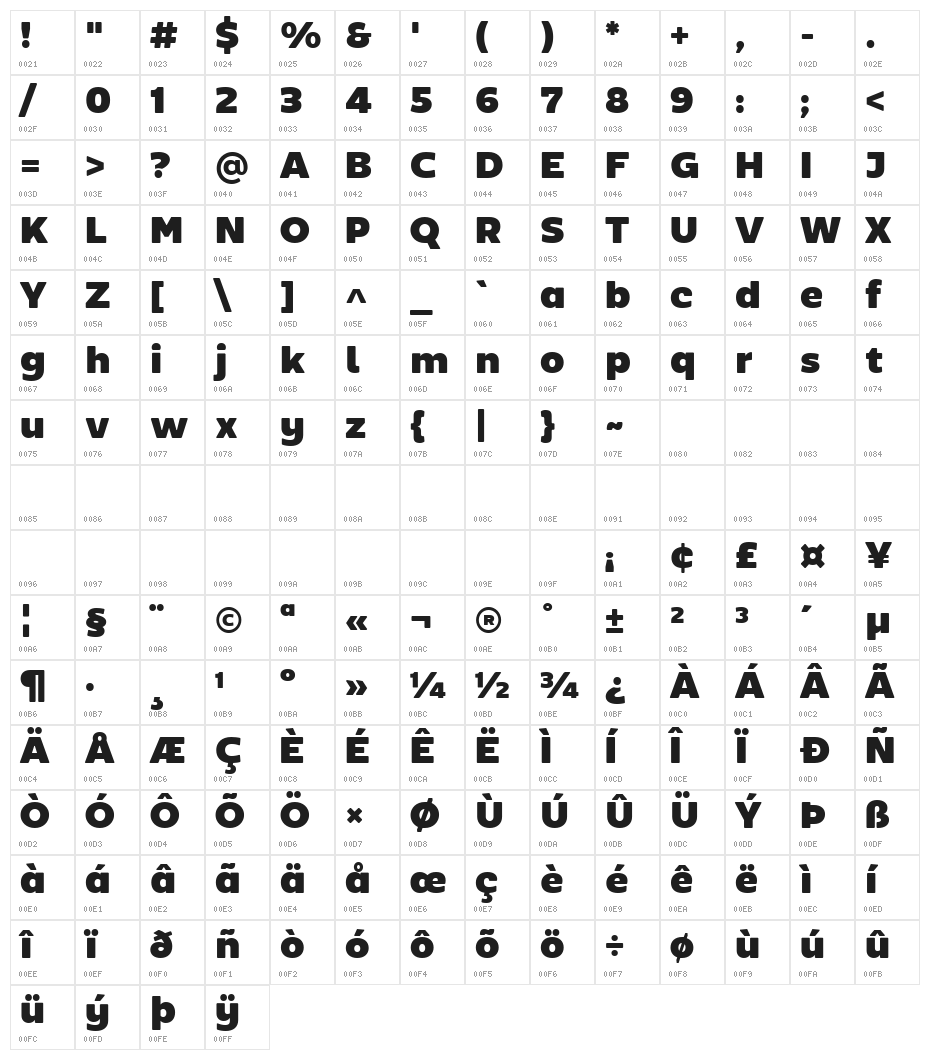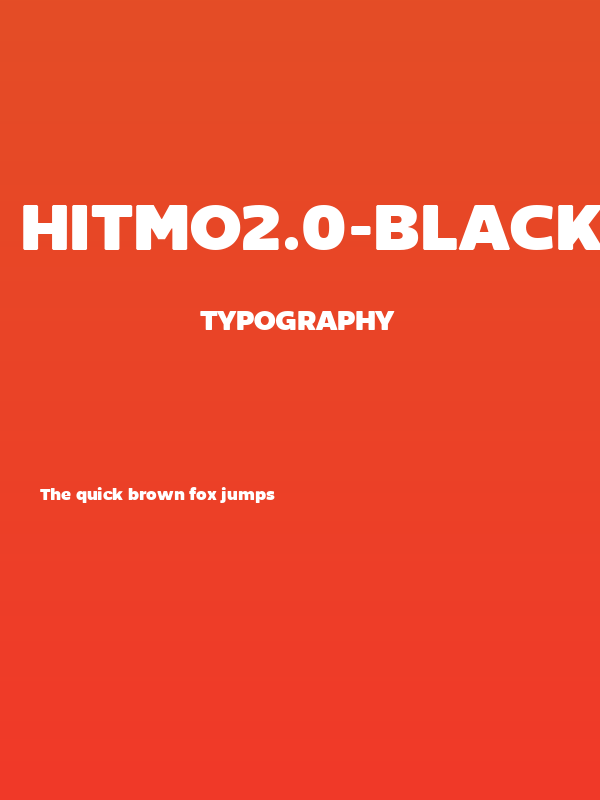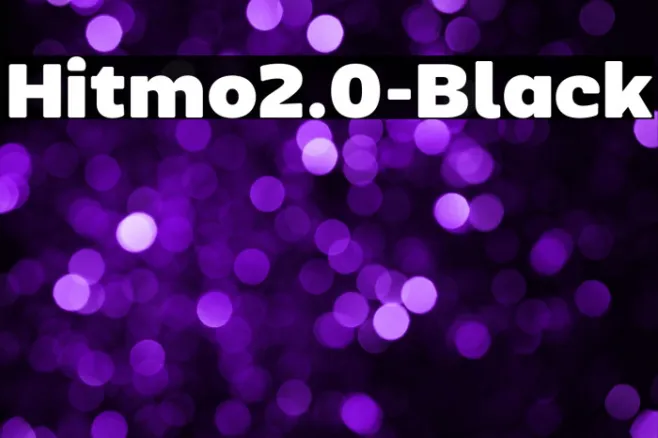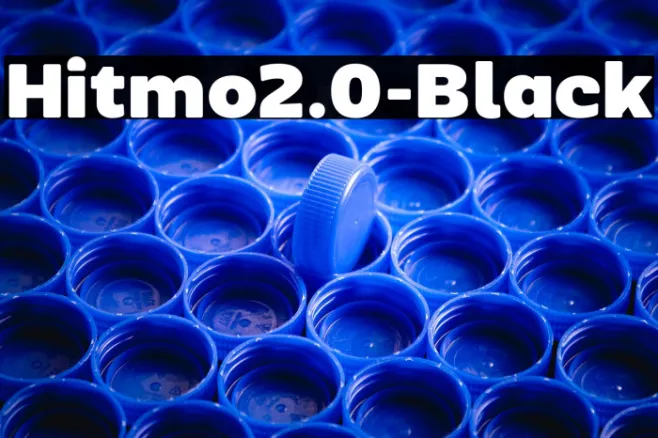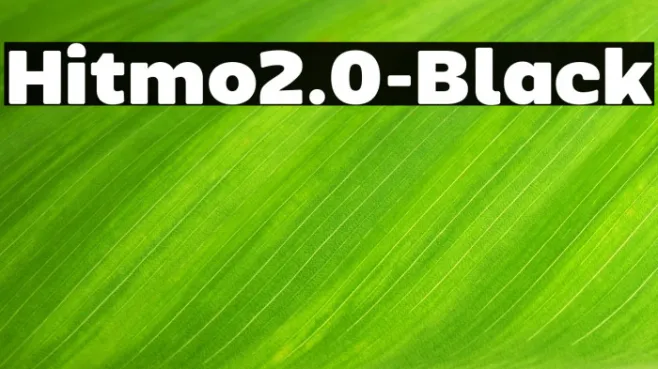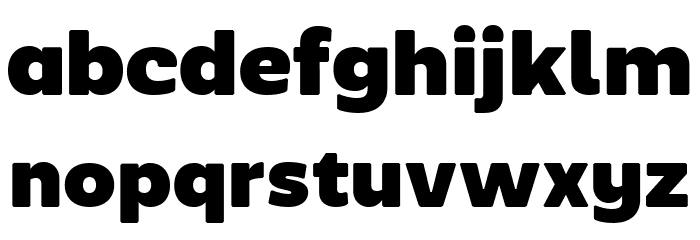
Hitmo2.0-Black Font
Hitmo2.0-Black Description
This font features bold, rounded characters with a strong presence, making it ideal for impactful headlines and attention-grabbing designs. The uppercase and lowercase letters maintain a consistent thickness, contributing to a cohesive and uniform appearance. The numerals are equally bold, ensuring they stand out in any context. Special characters are designed with the same weight and style, providing a complete and versatile typeface. The overall look is modern and assertive, suitable for projects that require a strong visual statement.